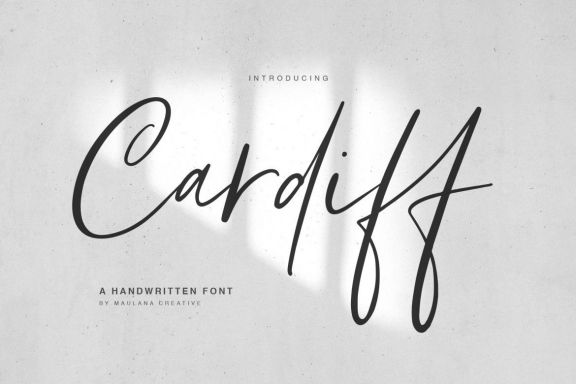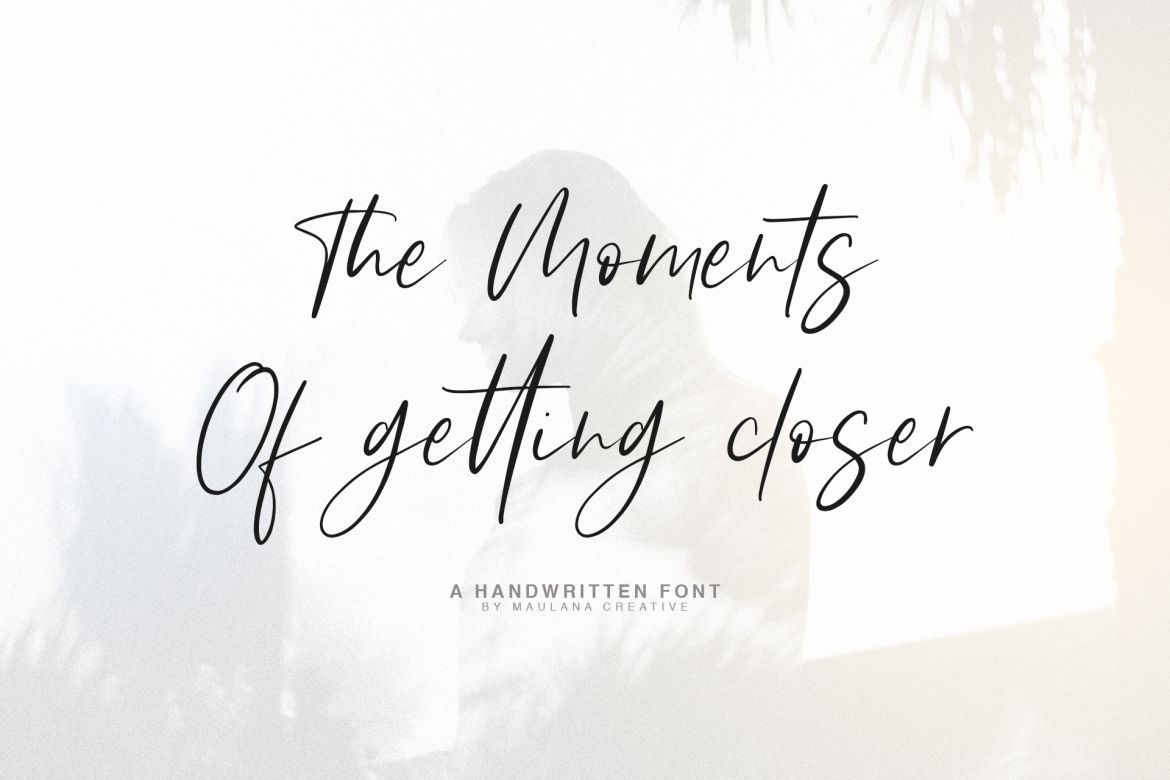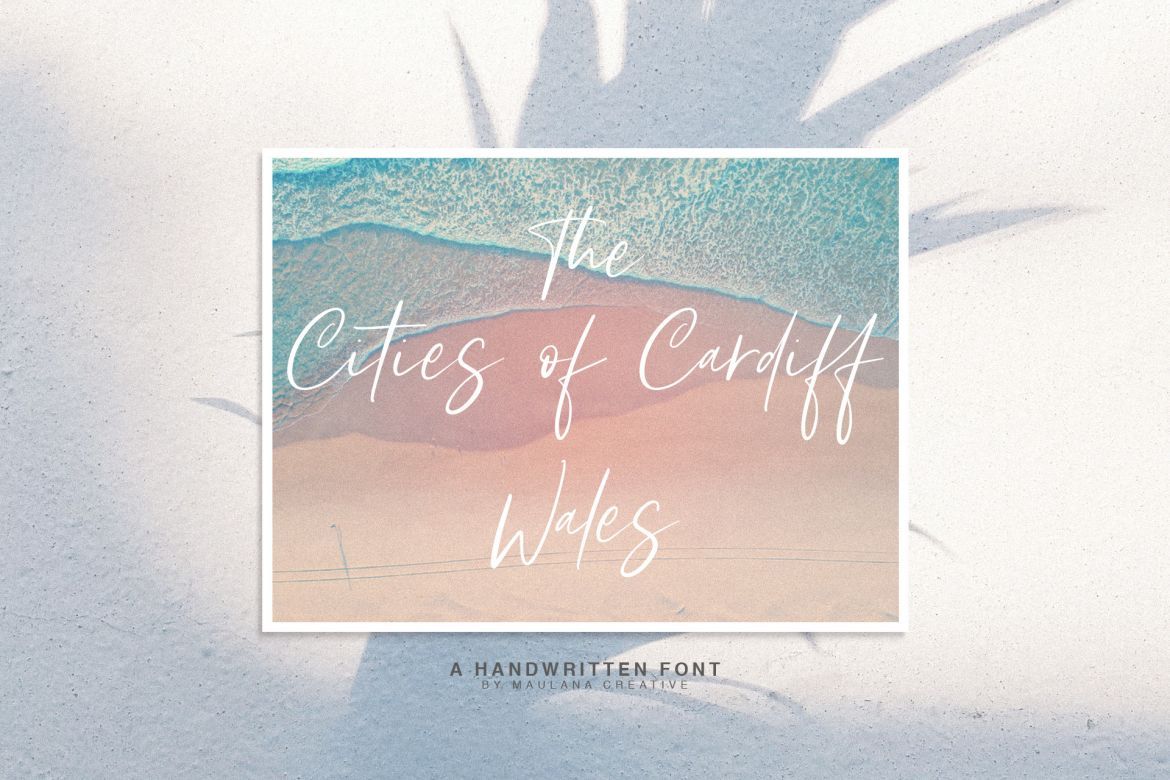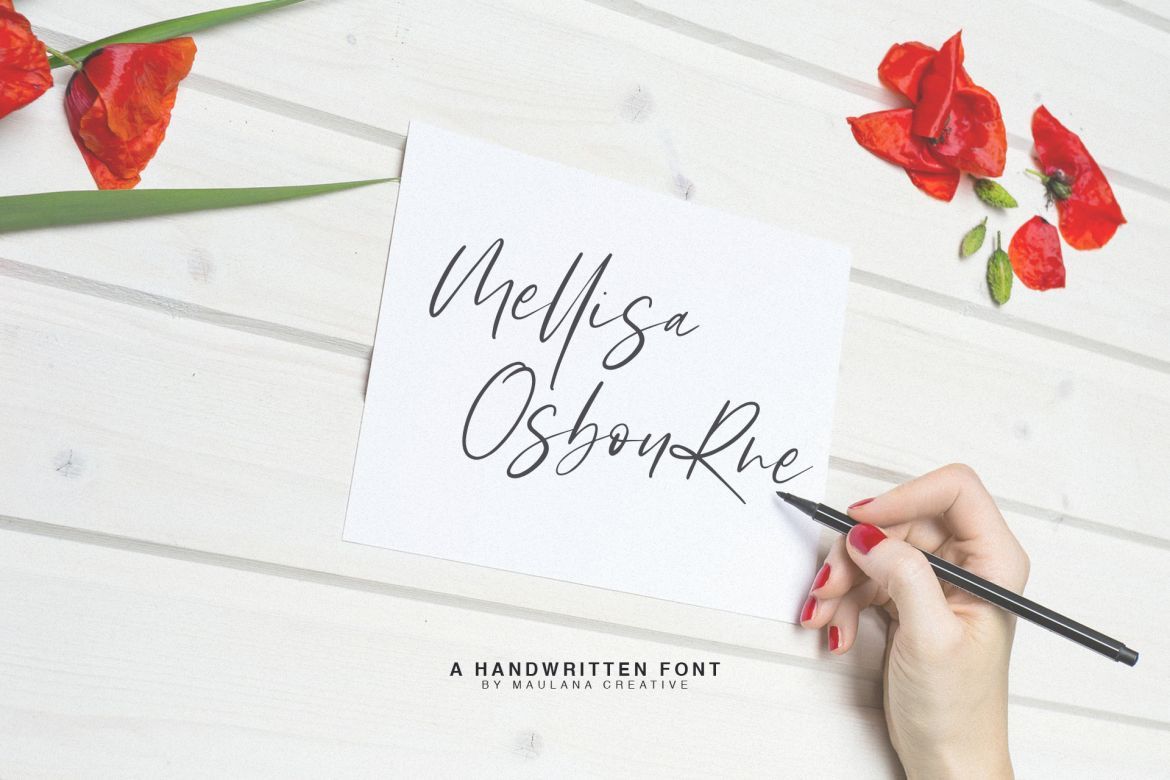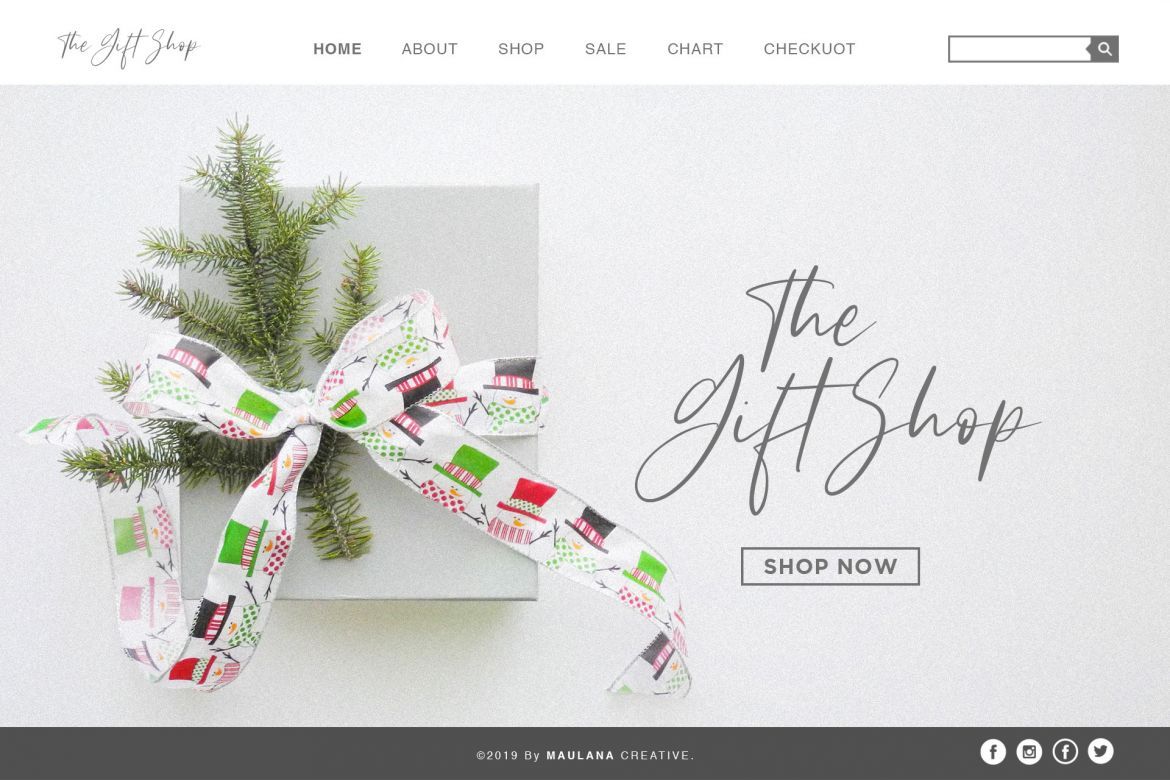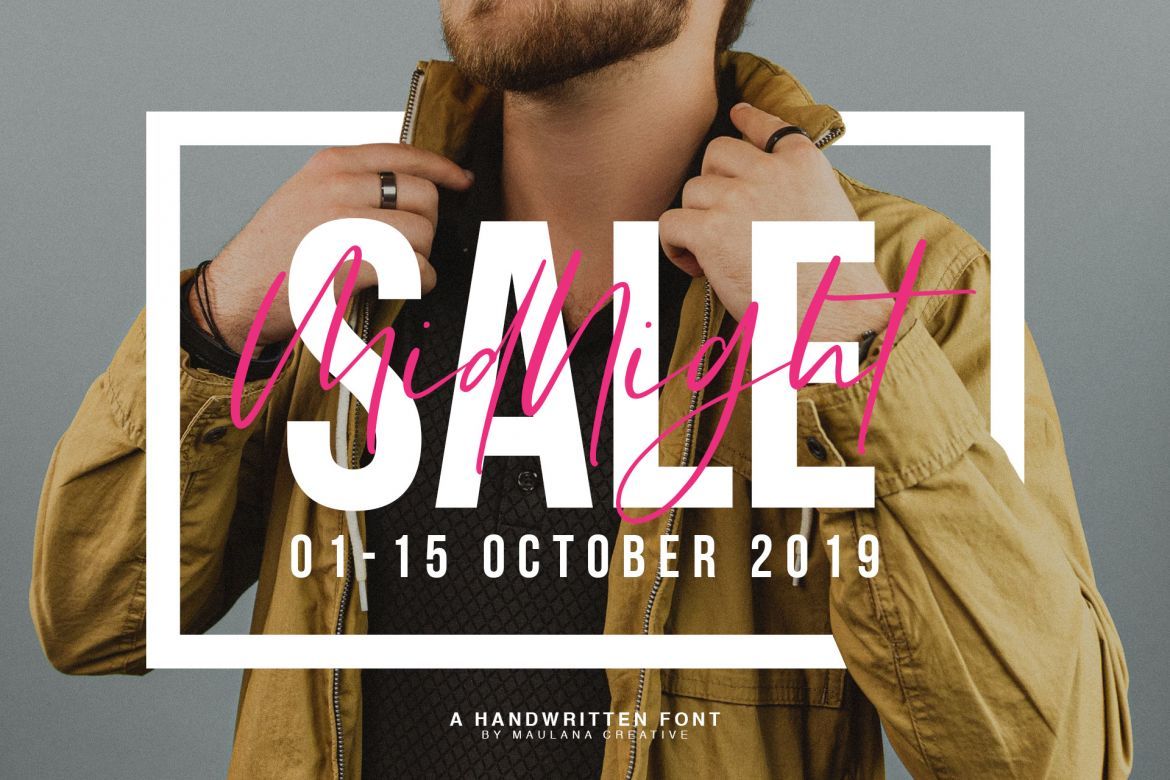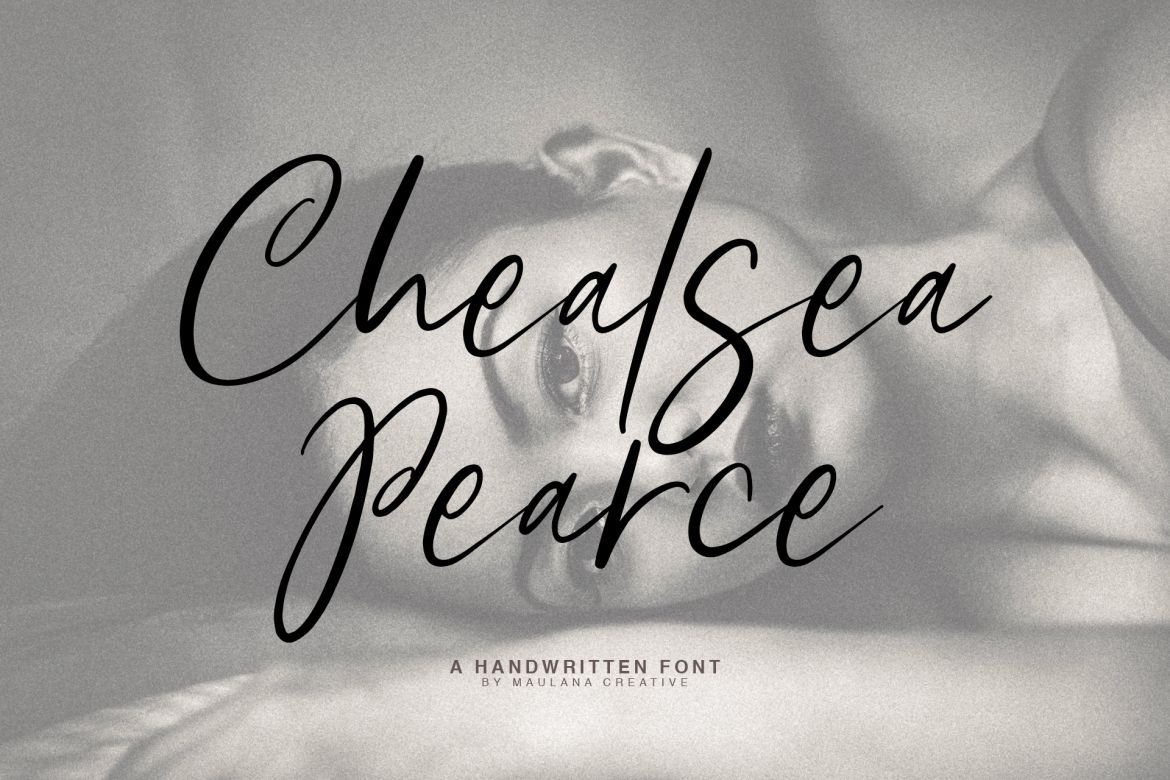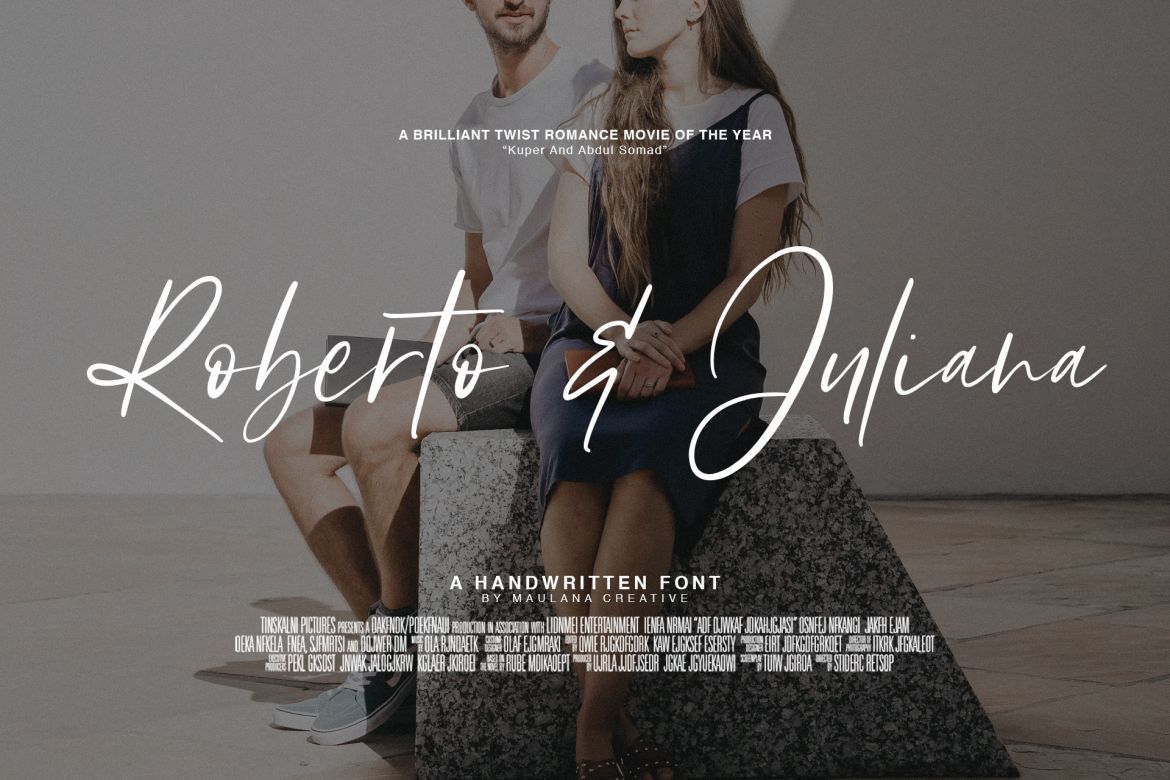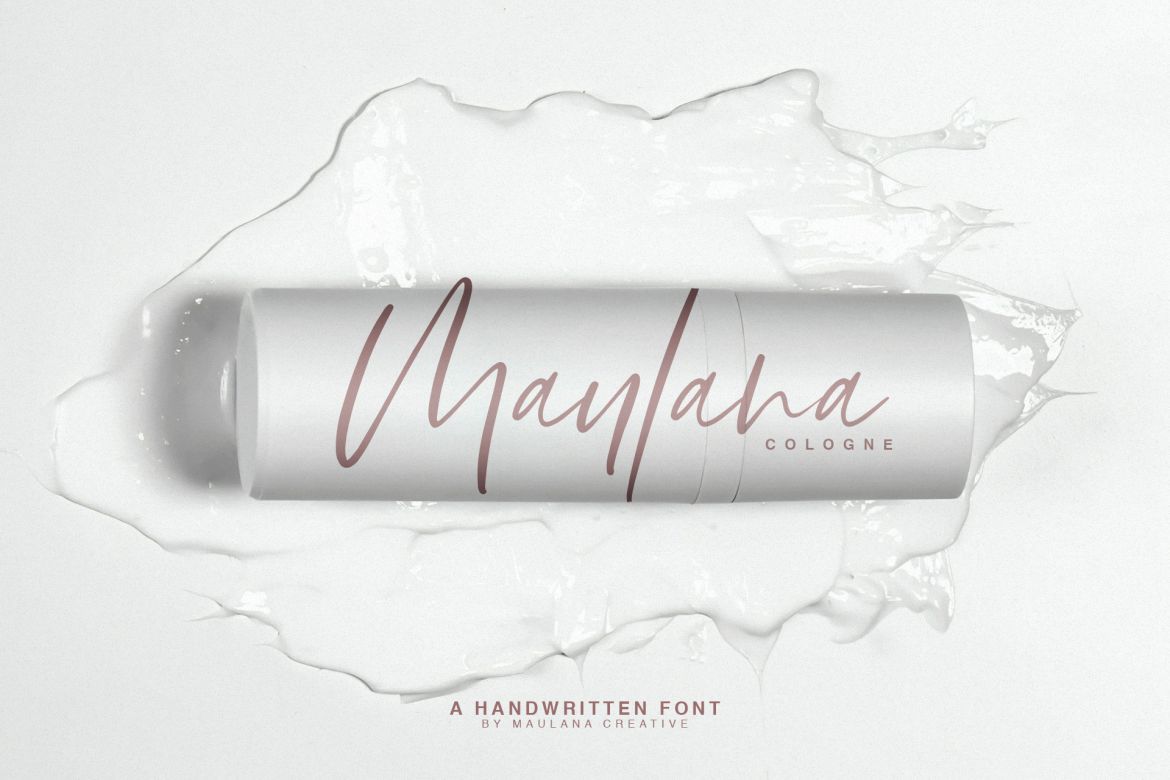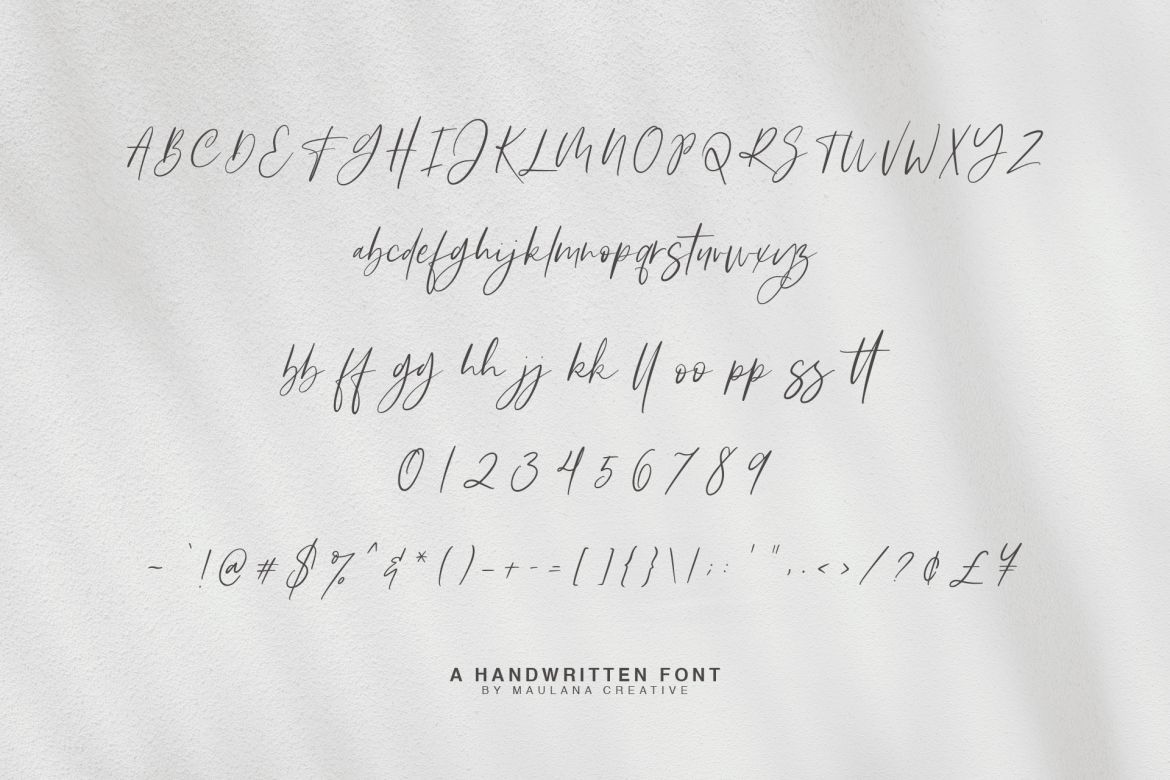
Cardiff Typeface
Give your designs an authentic brush handcrafted feel. "Cardiff" is perfectly suited to signature, stationery, logo, typography quotes, magazine or book cover, website header, flyer, clothing, branding, packaging design and more.
Ligature Includes: bb ff gg hh jj kk ll oo pp ss tt